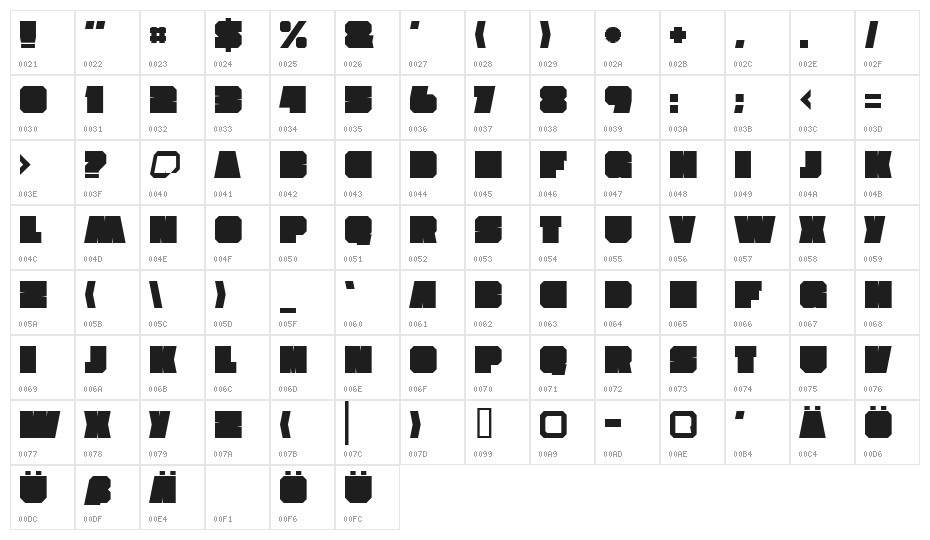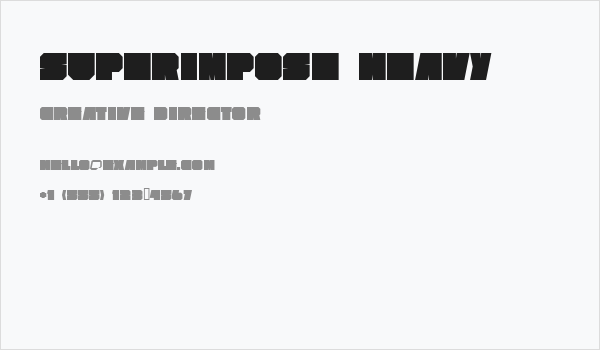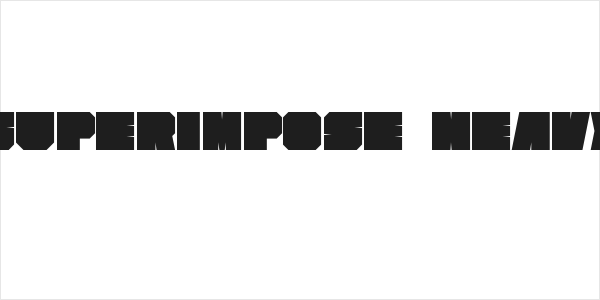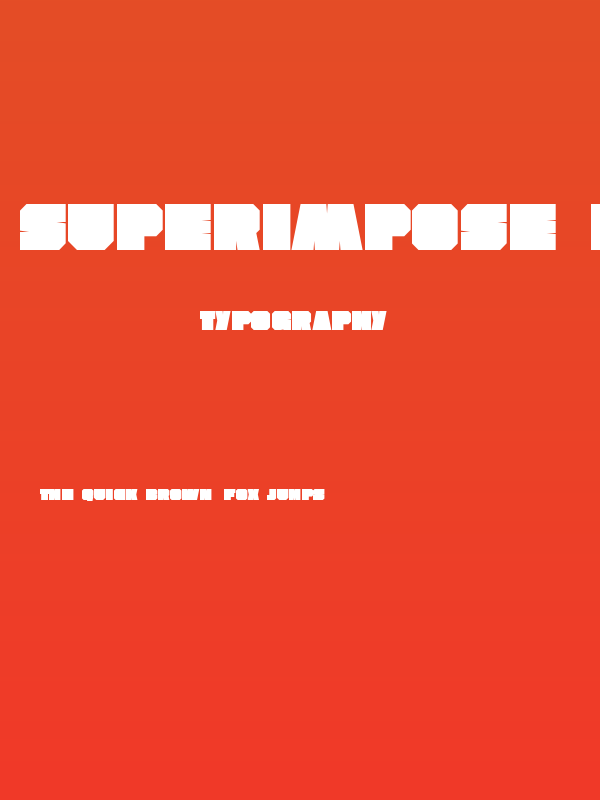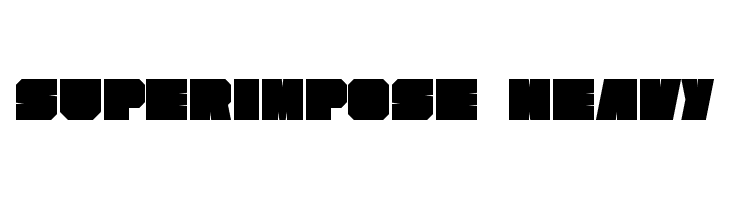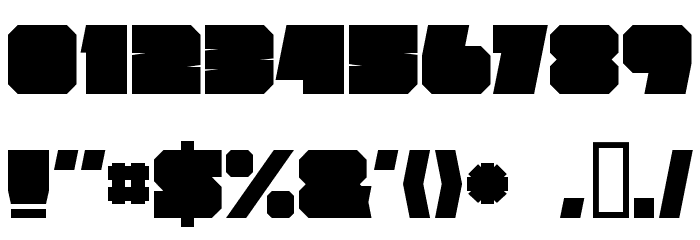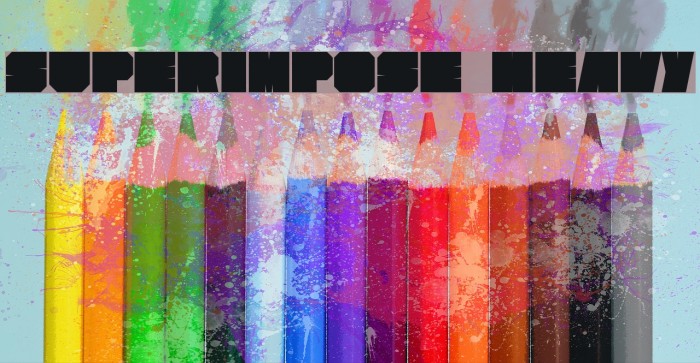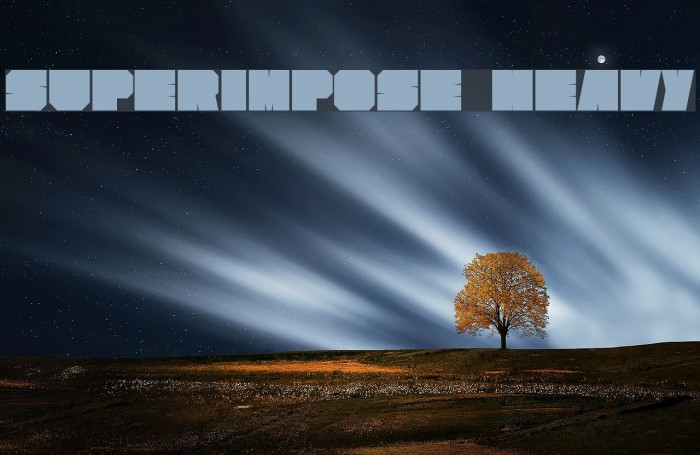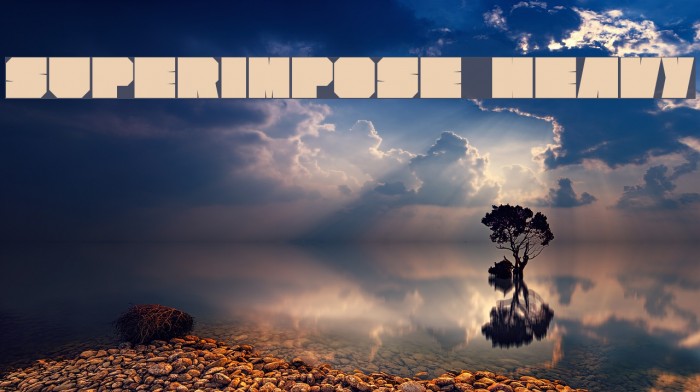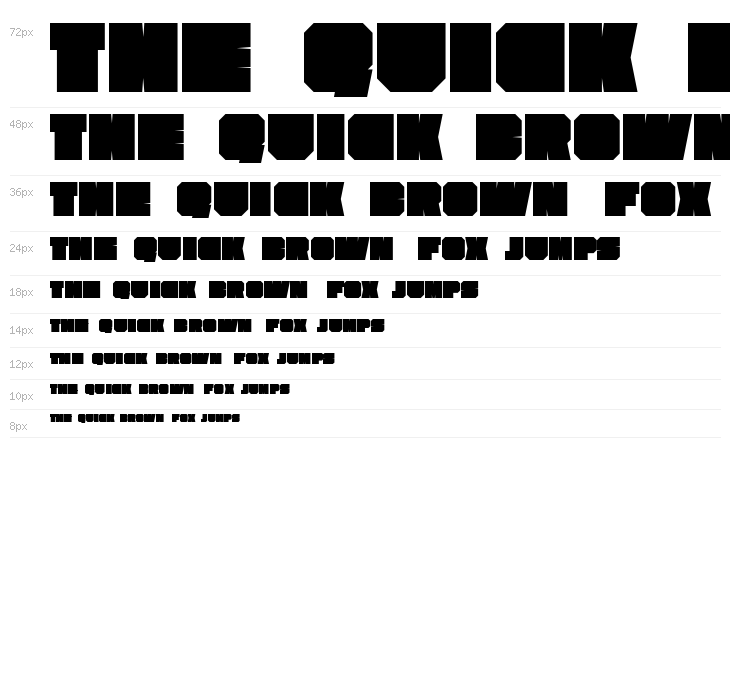
Superimpose Heavy Font
Superimpose Heavy Description
This font is characterized by its bold, geometric design with a heavy emphasis on angular shapes and sharp edges. Each character is constructed with a blocky, robust appearance that conveys strength and impact. The uppercase and lowercase letters maintain a consistent weight, creating a uniform and cohesive look. The numbers and special characters follow the same design principles, ensuring a seamless integration across all elements. The font's style is distinctly modern, with a touch of industrial flair, making it ideal for projects that require a strong visual presence.
| Proposed Projects | Ideal for branding, posters, headlines, and any design requiring a strong, impactful typeface. |